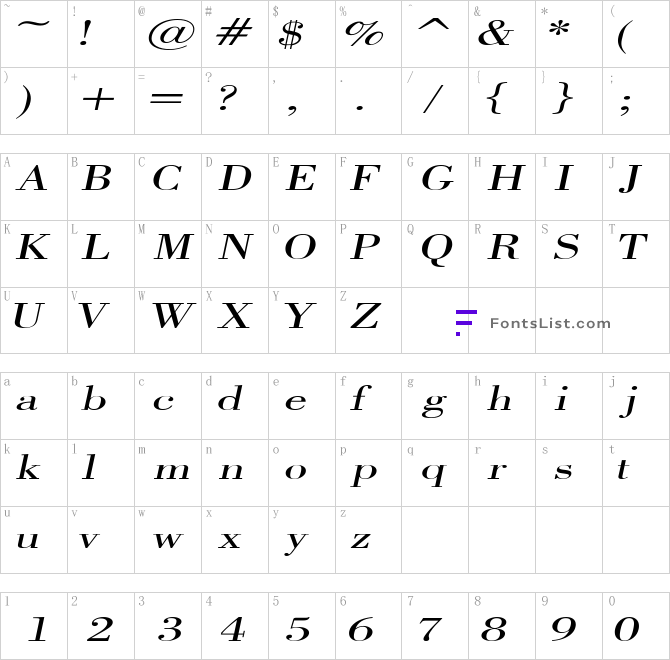
- Font Name:CapelliExtended
- Full Name:CapelliExtended Italic
CapelliExtended-Italic.ttf is a very beautiful artistic font, CapelliExtended-Italic.ttf is widely used in the design and printing of various books and pictures,CapelliExtended-Italic.ttf has a strong visual impact,CapelliExtended-Italic.ttf is a commonly used font in newspapers, magazines and books, and is used in posters, e-commerce Poster design, store design, logo design, font design and other fields.CapelliExtended-Italic.